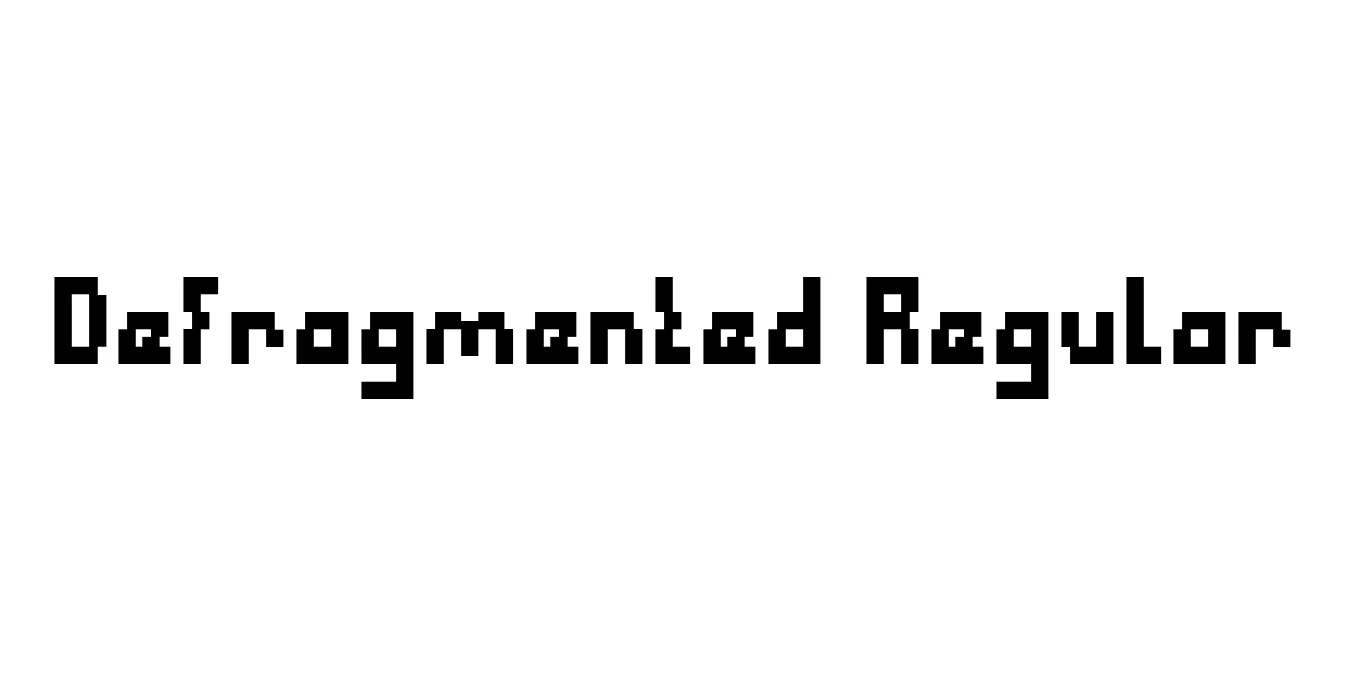
Defragmented Regular
Designed by James Madison
| Category | Techno / Bitmap |
| Designer | James Madison |
Defragmented Regular is a distinctive techno-style typeface created by designer James Madison of The Fontry. The font draws its primary inspiration from the visual representation of data organization and the digital aesthetic of late-20th-century computer systems. Its unique, fragmented structure mimics the appearance of a hard drive mid-process, offering a pixelated and modular look that is perfect for projects requiring a high-tech or cybernetic atmosphere.
The font's anatomy is defined by its deliberate gaps and blocky segments, which maintain surprising legibility despite its deconstructed form. It has become a staple for designers working within the gaming, electronic music, and science fiction genres. Whether used for digital interfaces or bold print headers, Defragmented Regular provides a striking visual shorthand for technology, coding, and the digital frontier.
Defragmented Regular Best Uses
Perfect for HUD overlays, UI menus, and retro-themed pixel art games.
Ideal for electronic, industrial, or synthwave album covers and tour posters.
Great for headers on tech blogs, cybersecurity websites, or programming portfolios.
Works well for streetwear designs and tech-focused graphic tees.